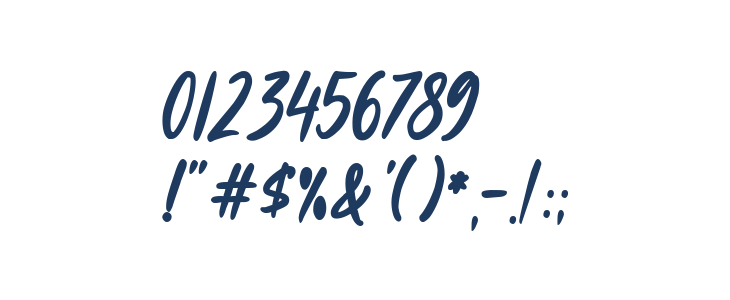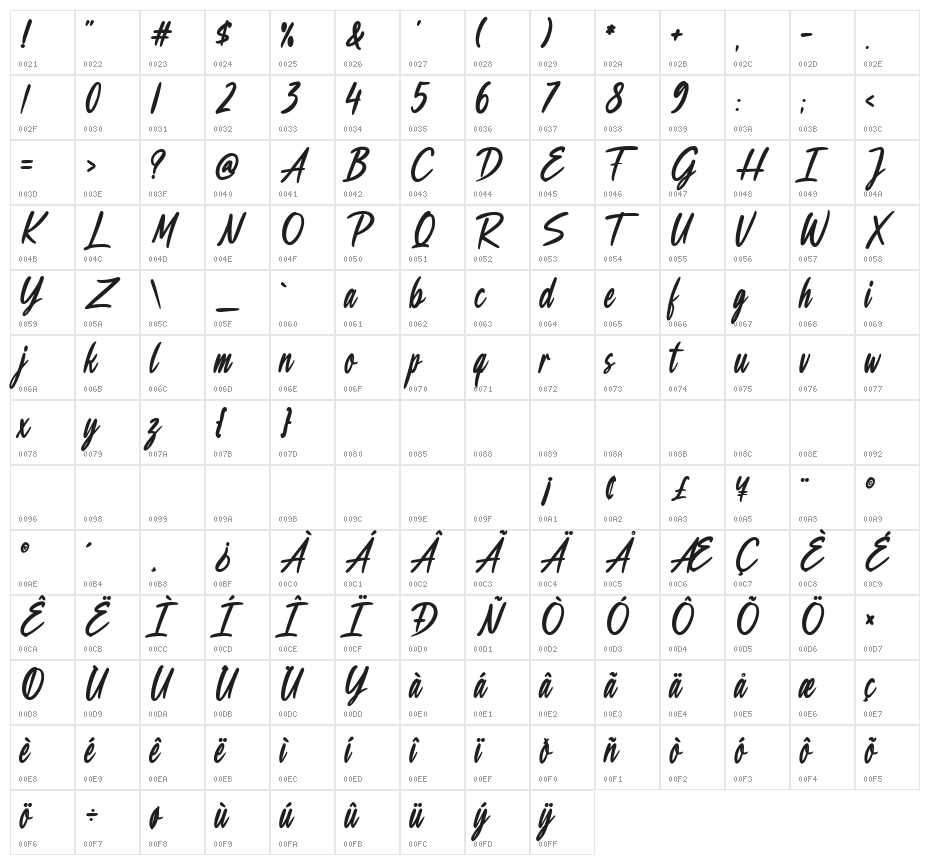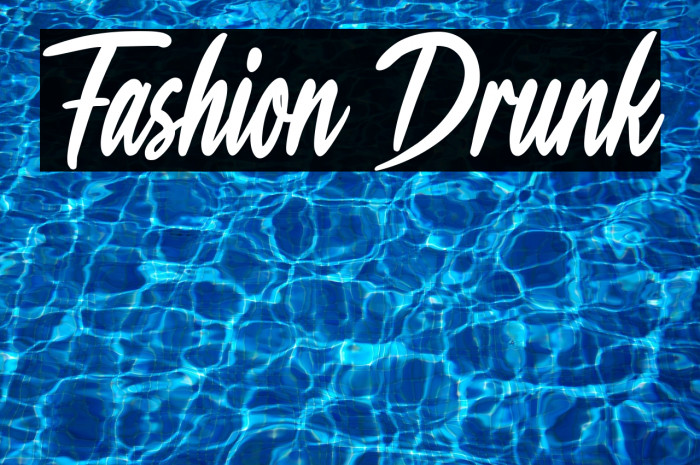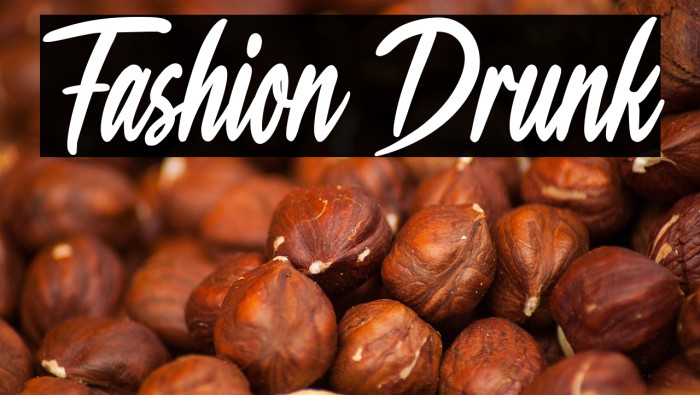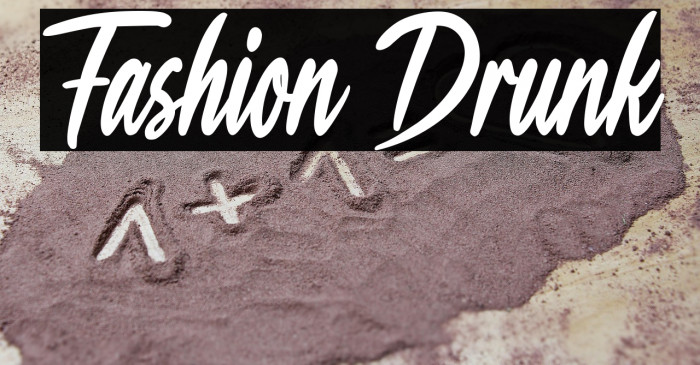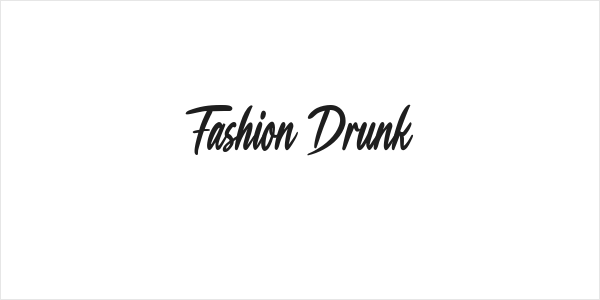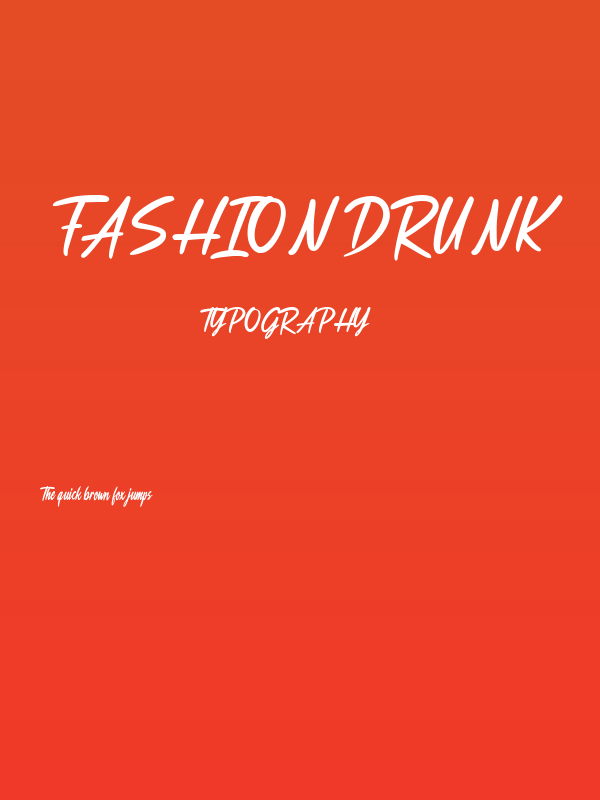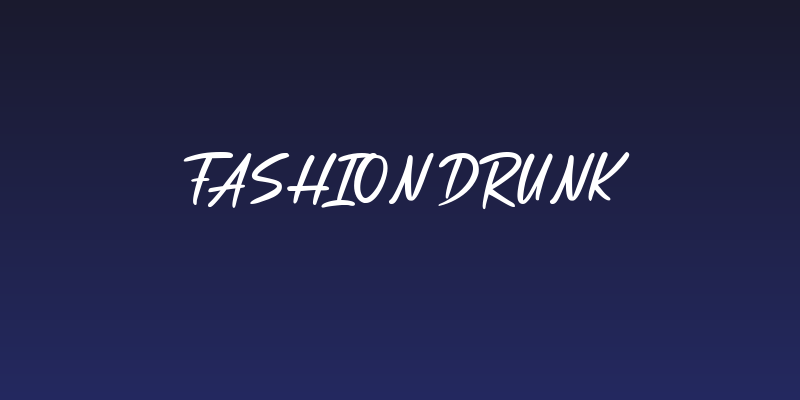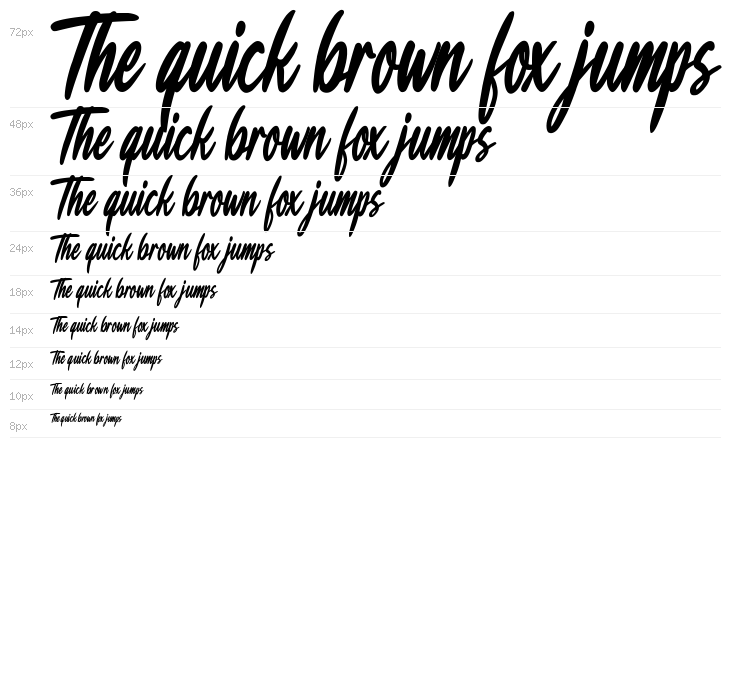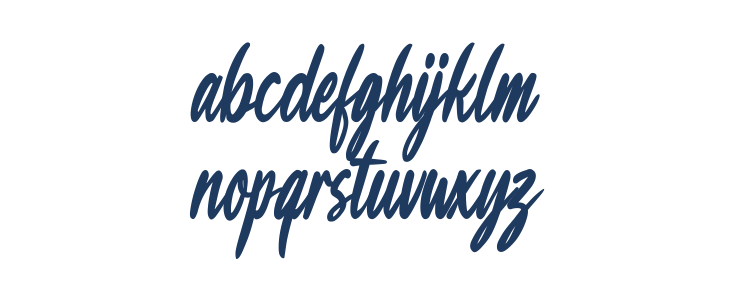
Fashion Drunk Font
Fashion Drunk Description
This font exudes a dynamic and energetic vibe with its bold, flowing script style. The characters are crafted with a sense of movement, featuring smooth, connected strokes that mimic the fluidity of handwriting. The uppercase letters are slightly more structured, providing a nice contrast to the more playful lowercase letters. Numbers and special characters maintain the same lively aesthetic, ensuring consistency throughout. The overall appearance is both stylish and approachable, making it suitable for a variety of creative projects.
| Proposed Projects | Ideal for fashion branding, event invitations, social media graphics, and lifestyle blogs. |